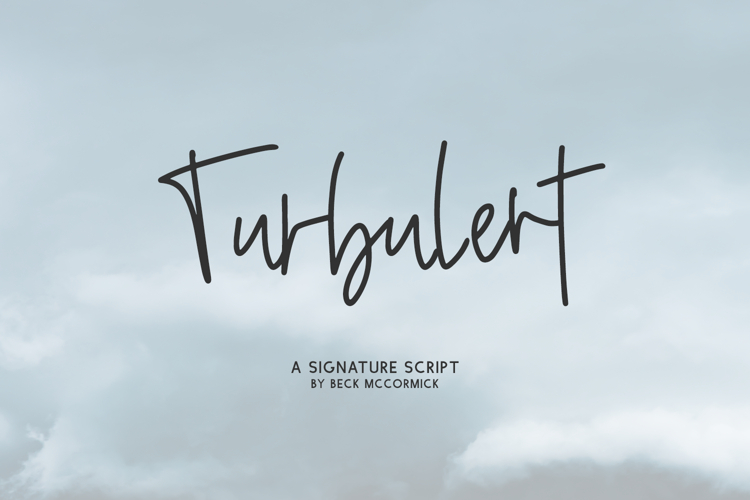
Introducing Turbulent Script, a monoline handwriting font. Turbulent includes ligatures to enhance the handwritten look.
Turbulent includes:
- 12 ligatures - bb, dd, ee, ff, ll, mm, nn, oo, pp, rr, ss, tt